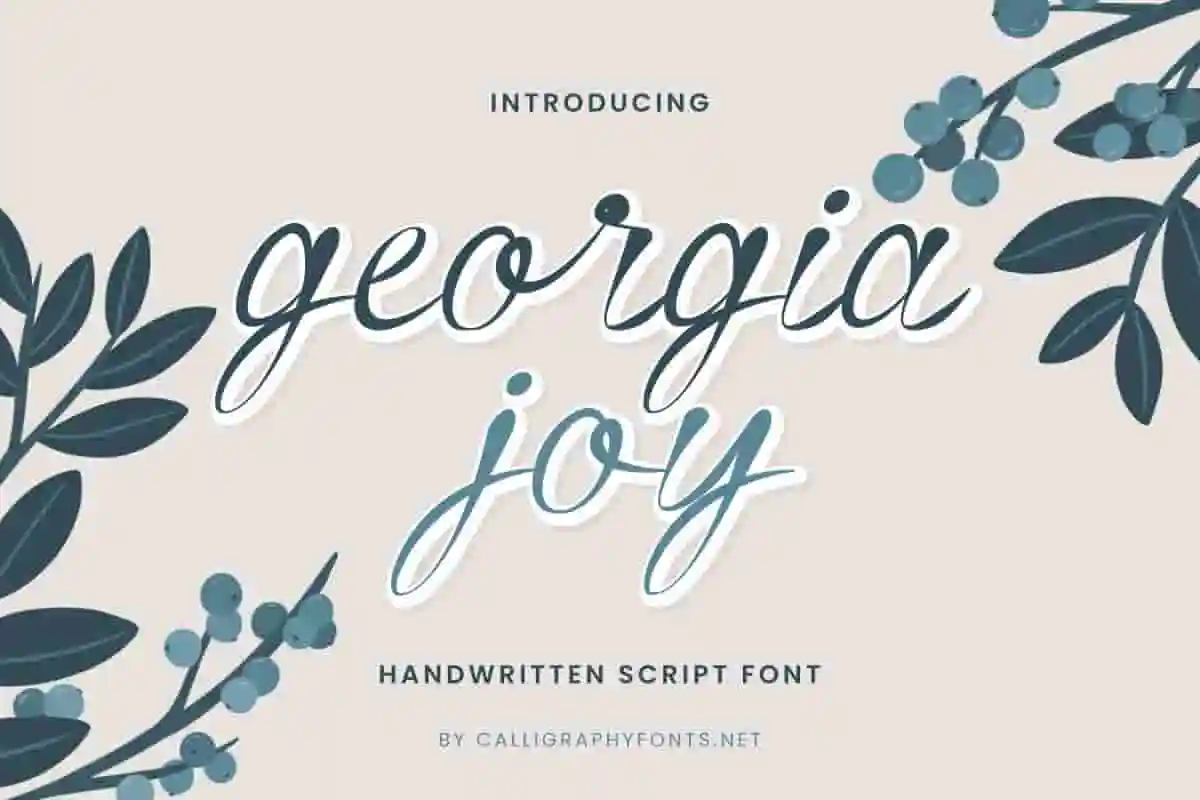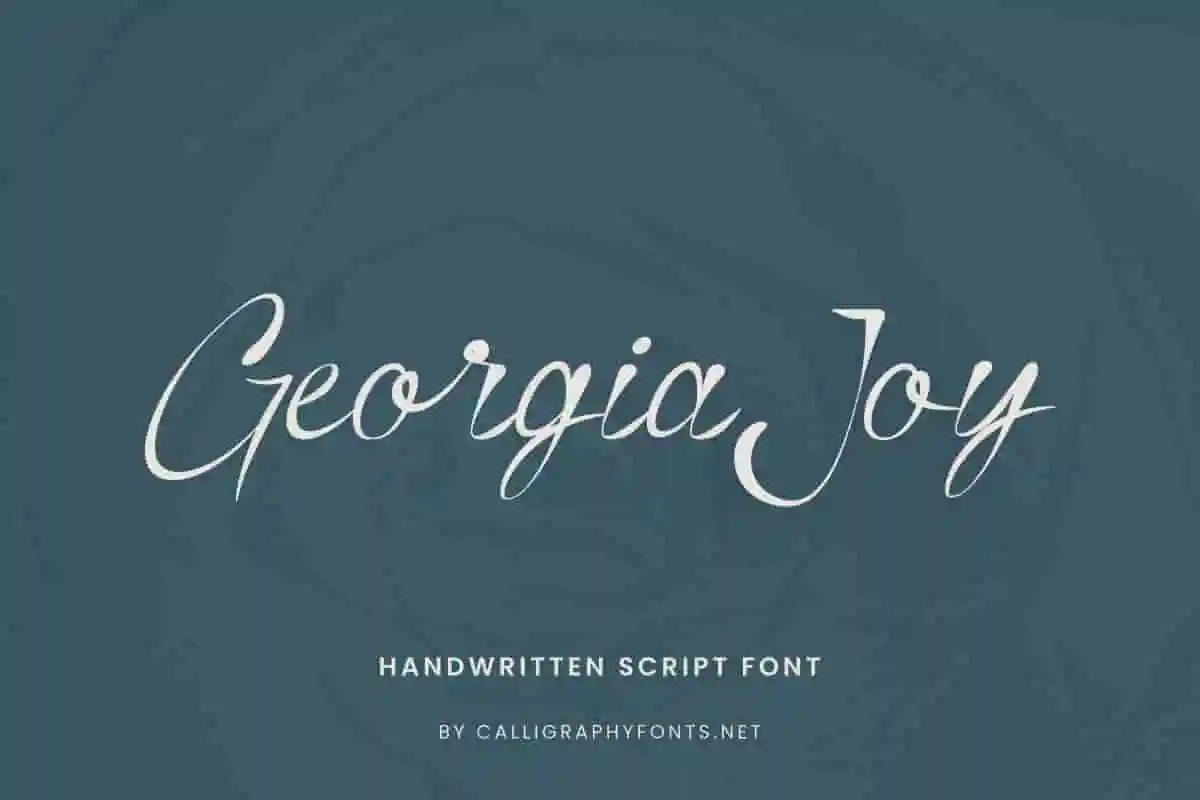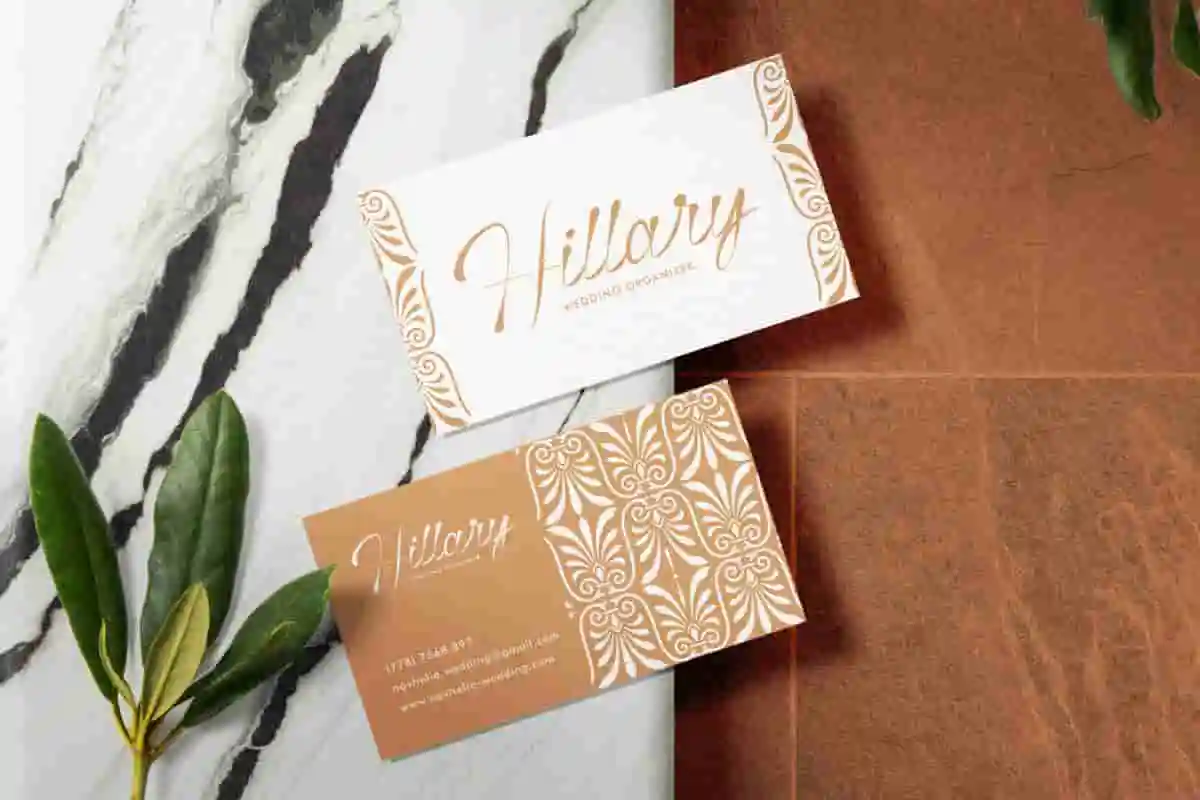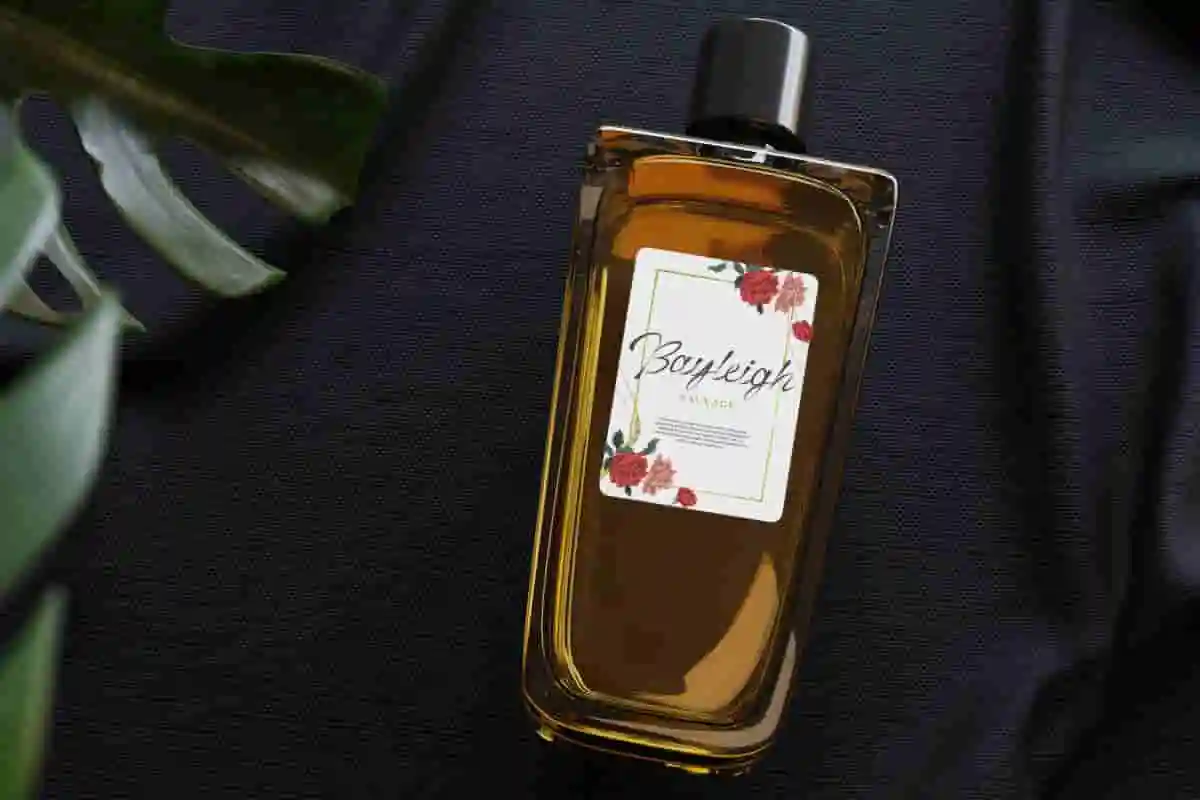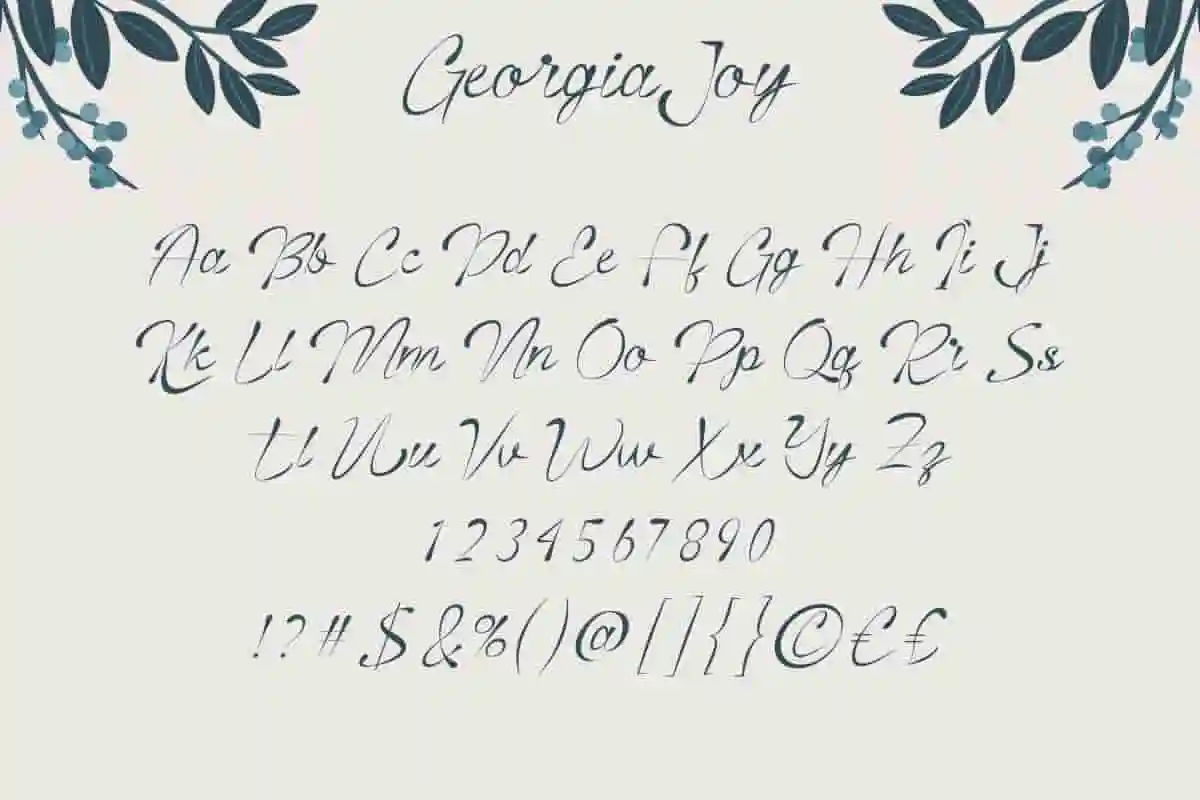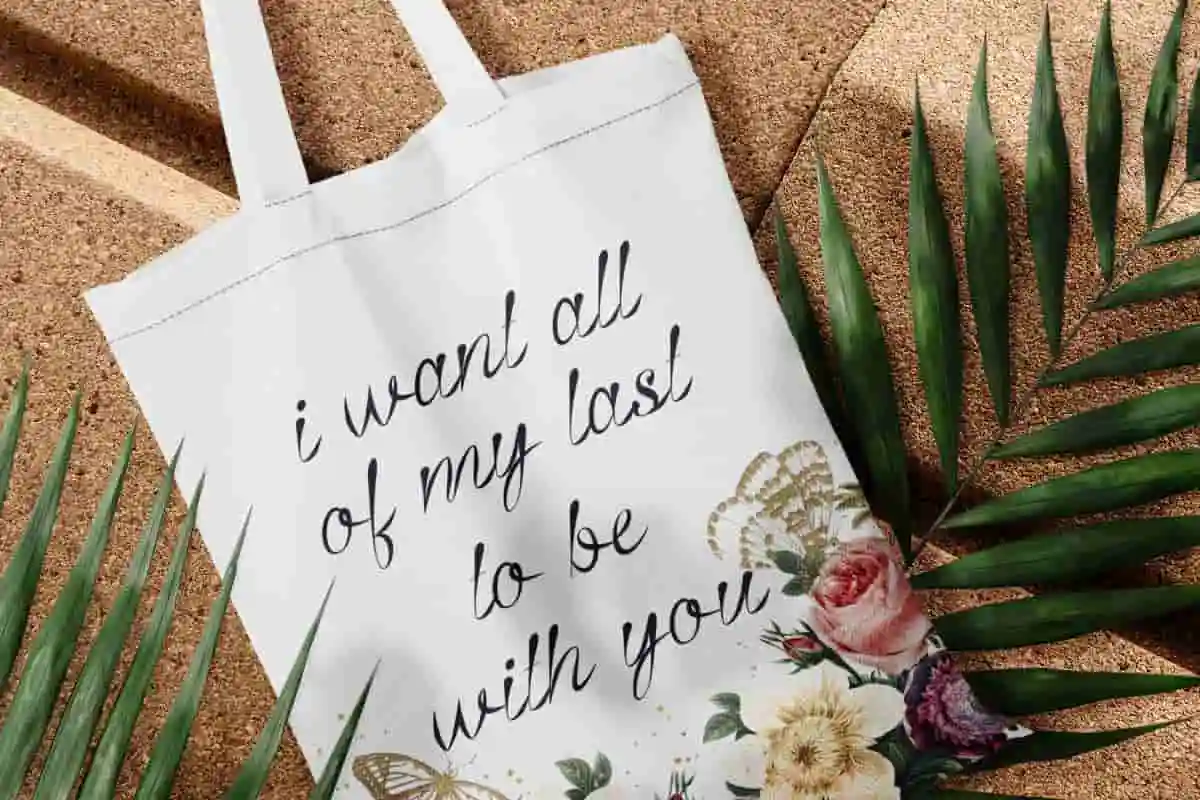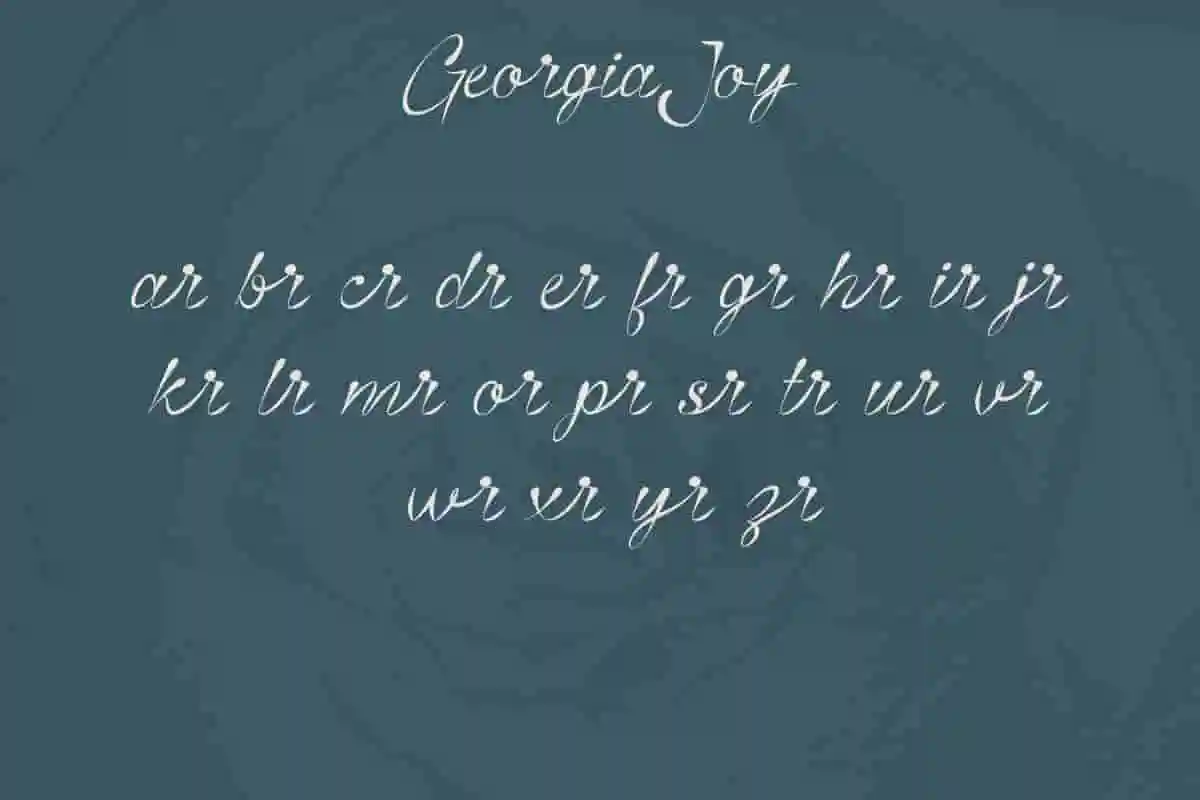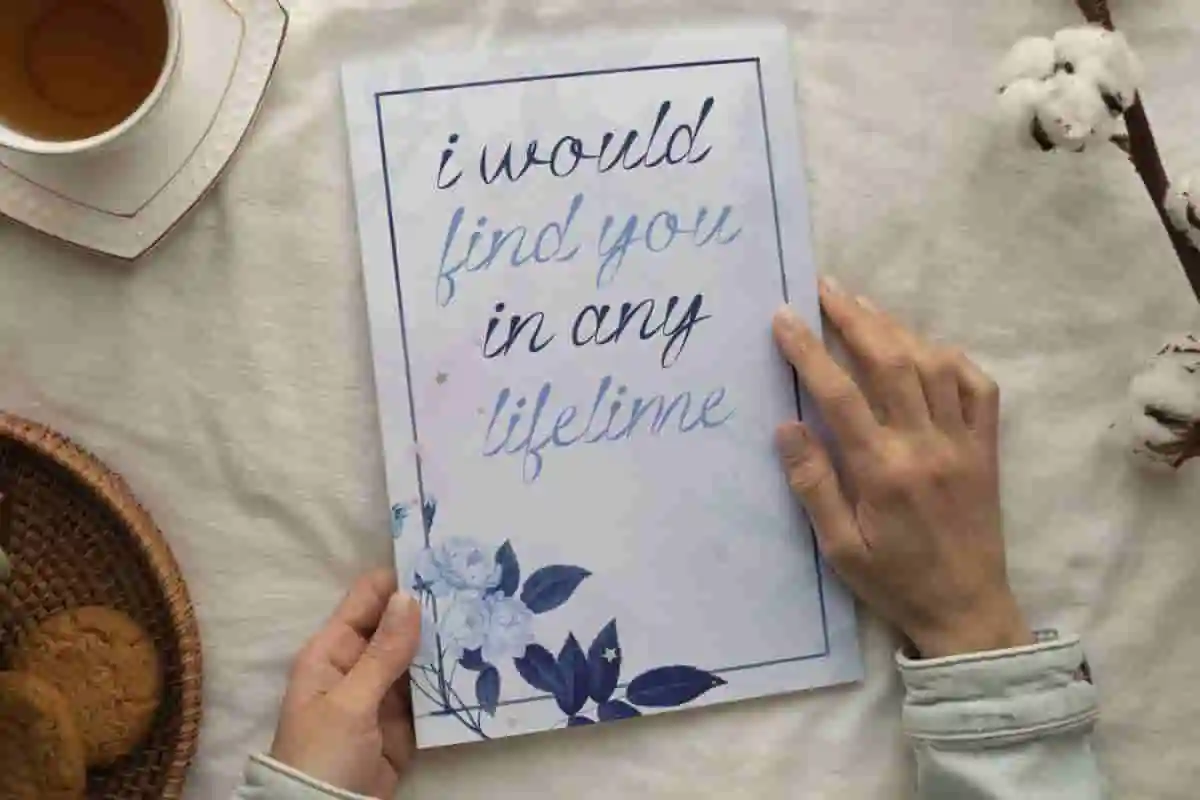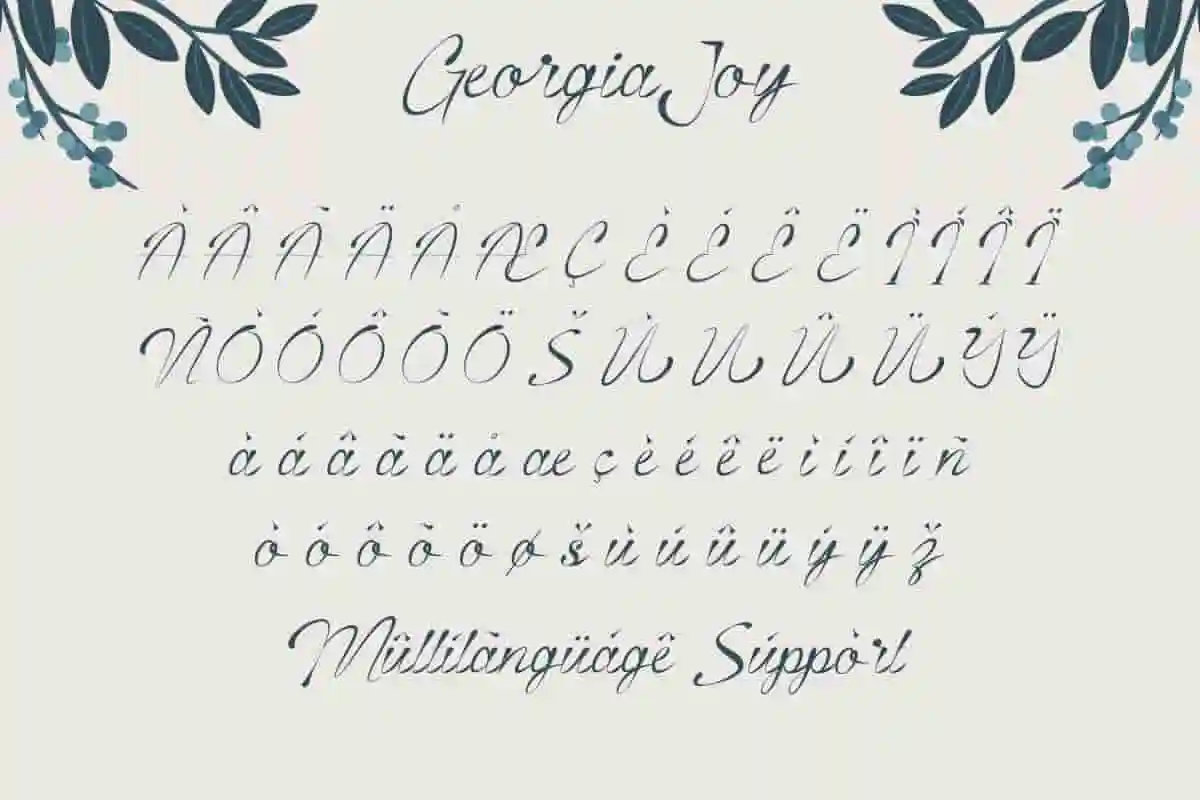
Georgia Joy Handwriting Font
Georgia Joy Font is a classic handwritten font with feminine style. The flawless script make it suitable for business card, cosmetic, florist, perfume label, title, tote bag design custom, or simply use it in your background writing.
Georgia Joy Font is a beautiful handwritten script font with casual look created by Calligraphy Fonts, inspired by cursive writing of the nobles in European countries. This font is perfect for your creative projects such as brochure, business card, creating logo, headline, label, letterhead, printed design, product packaging, quotes, title, etc.
Georgia Joy is a beautifully crafted handwriting font designed to bring elegance, warmth, and personality into your creative work. With its soft, flowing strokes and natural rhythm, this handwriting typeface captures the look and feel of real penmanship, making it perfect for heartfelt design..
Georgia Joy is a graceful handwriting font that blends beauty with authenticity. Designed to mimic the natural movement of pen on paper, this font offers the charm of real handwriting with a smooth, clean finish that elevates your design work instantly.
Created for projects that need a personal touch, this handwriting font is perfect for wedding invitations, beauty branding, lifestyle blogs, product packaging, and heartfelt quotes. Every letter flows with softness and subtle emotion, capturing the intimacy only handwriting can provide.
• Wedding invitations with a romantic handwriting feel
• Stationery and handcrafted product packaging
Georgia Joy Font will be great for many industry including: author, boutique, cosmetic, craft, fashion, florist, musician, photography, publishing, salon and spa, wedding organizer, and anything that requires a natural handwriting touch. Carefully crafted so as to create perfection in the writing and add aesthetics to every design made, easy to read and have additional characters that make it stand out, start now to be creative with Georgia Joy Font!
Georgia Joy Font comes with a full set of Uppercase and Lowercase Basic Characters, Number, a large range of Punctuation and Symbol, Ligature, and also supports multilingual characters. Ready to use both on Windows machine or Mac with simple installations. It’s tested to work well in the Adobe Apps (Illustrator, Adobe InDesign, Adobe Photoshop) CorelDraw, and others. PUA Encode Characters means you can access all the glyphs and other additional characters easily – Fully accessible without additional design software.